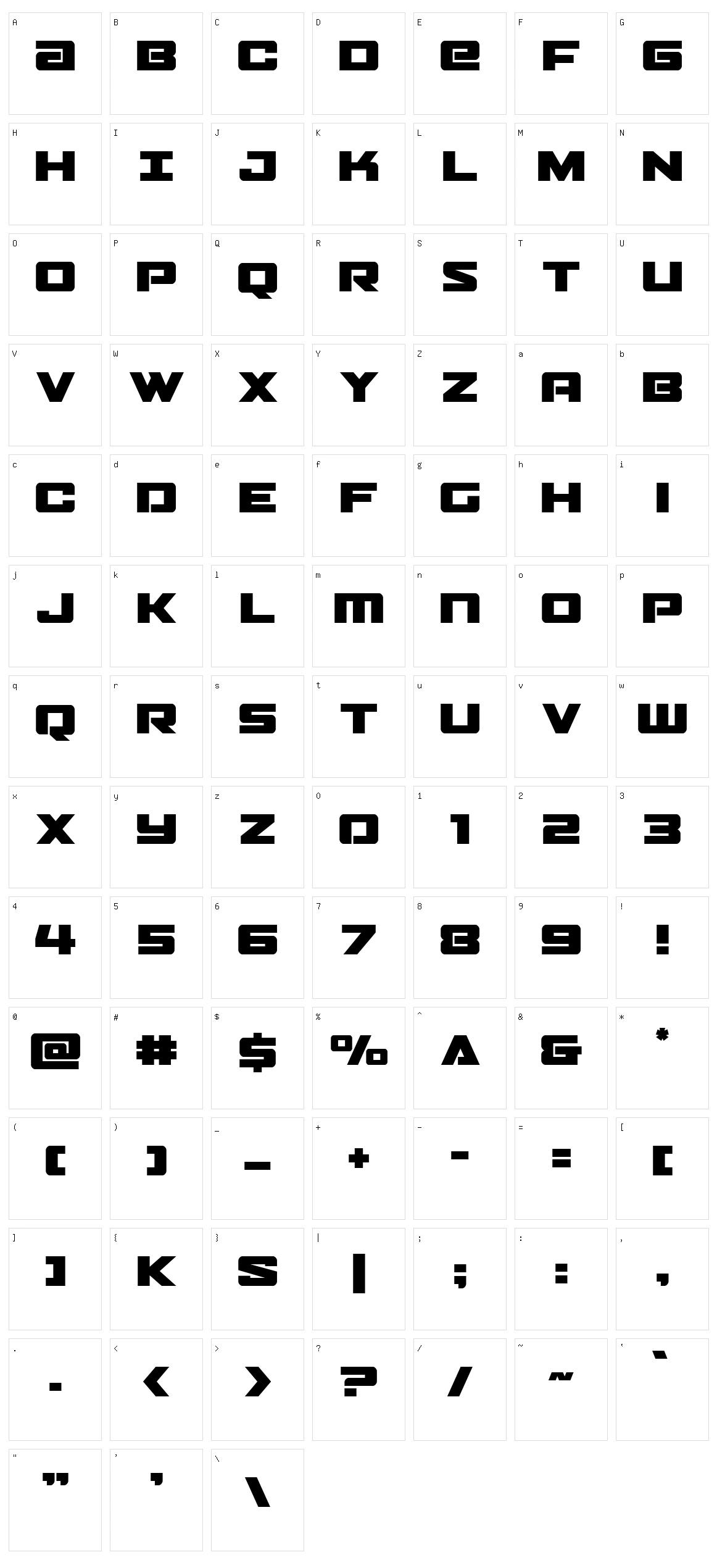
Power Broker
Power Broker Font
This font comes with the following 23 versions: Regular, Italic, Semi-Italic, Super-Italic, Leftalic, Semi-Leftalic, Super-Leftalic, Condensed, Condensed Italic, Expanded, Expanded Italic, 3D, 3D Italic, Gradient, Gradient Italic, Gradient 2, Gradient 2 Italic, Halftone, Halftone Italic, Twotone, Twotone Italic, Spaced and Spaced Italic.